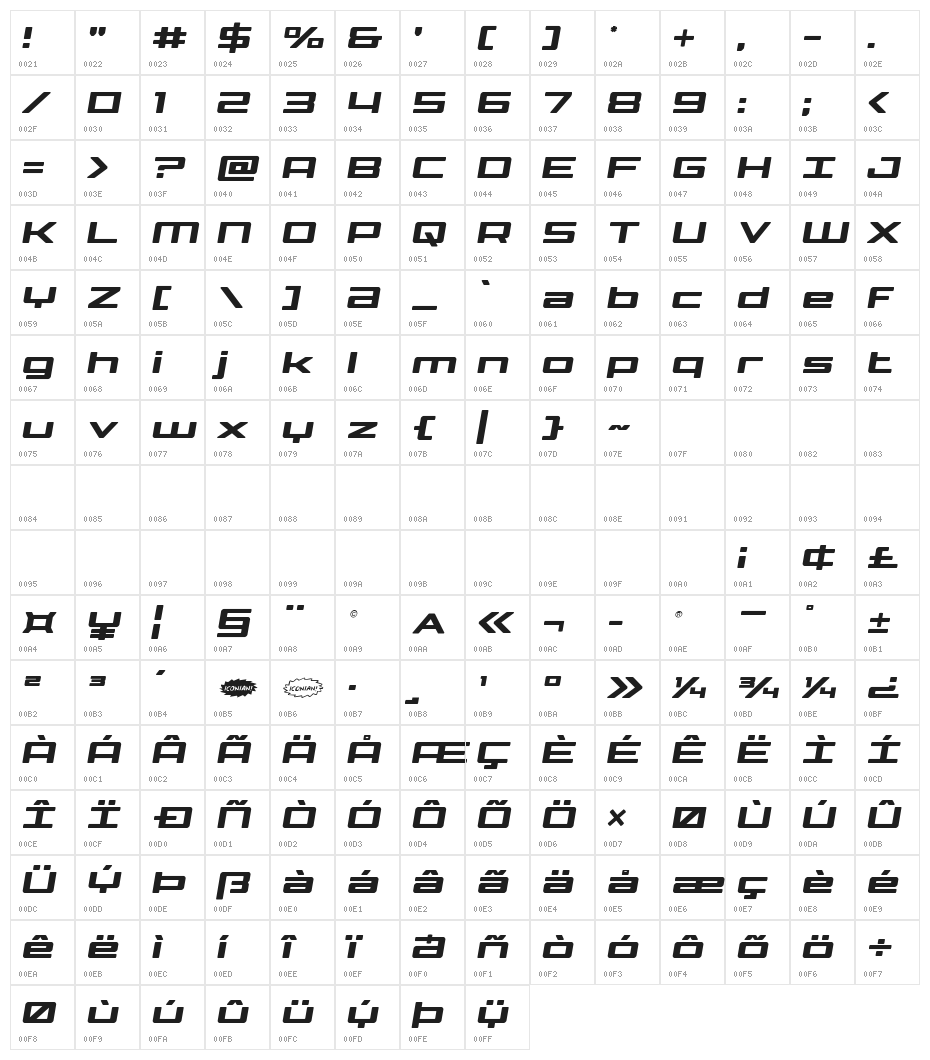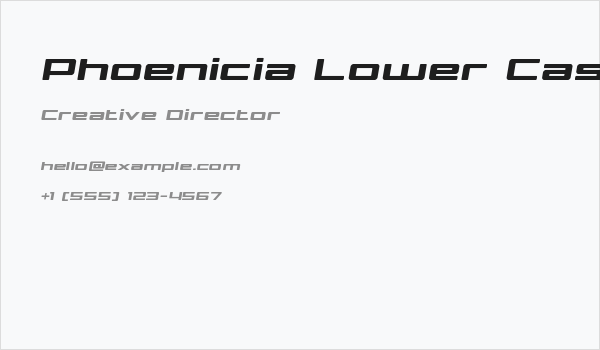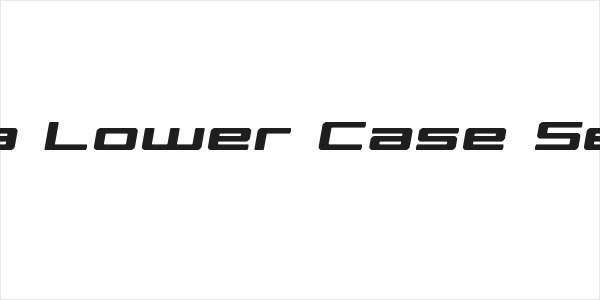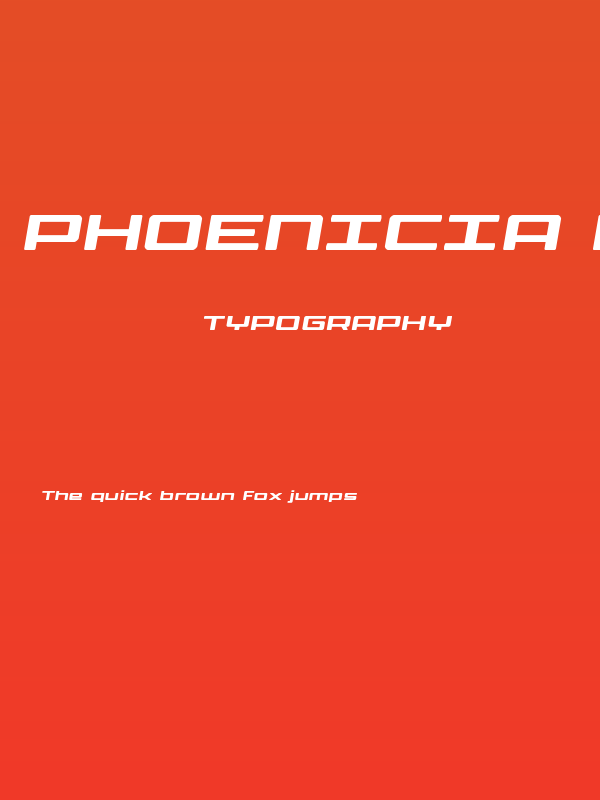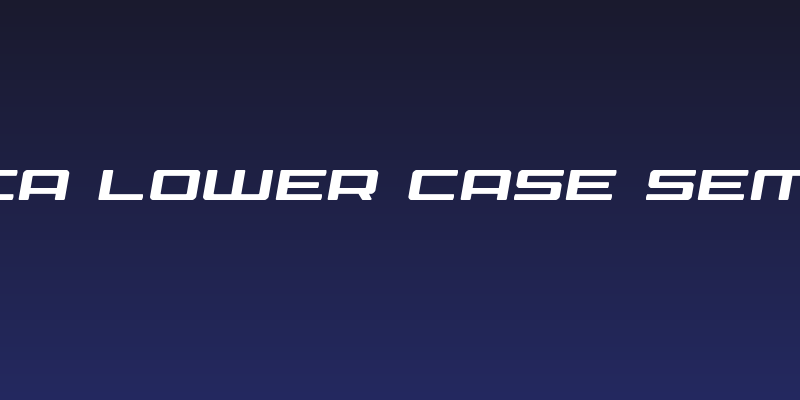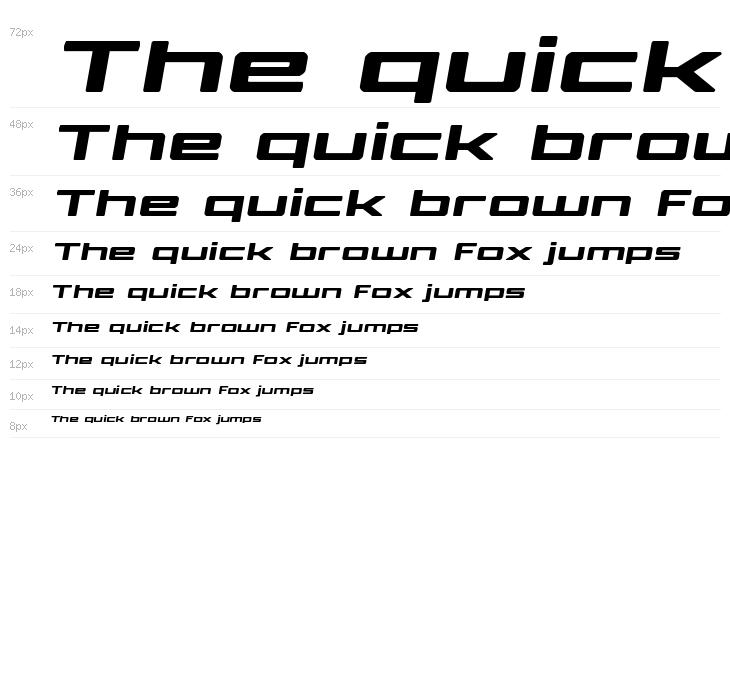
Phoenicia Lower Case Semi-Italic Font
Phoenicia Lower Case Semi-Italic Description
This font features a sleek, modern design with a semi-italic slant, giving it a dynamic and forward-leaning appearance. The characters are crafted with a geometric precision, showcasing a blend of sharp angles and smooth curves. The uppercase letters are bold and assertive, while the lowercase letters maintain a consistent style that complements the overall aesthetic. The numerals are clear and easy to read, making them suitable for various applications. Special characters are designed with the same attention to detail, ensuring uniformity across the font. The spacing between characters is balanced, providing a clean and organized look.